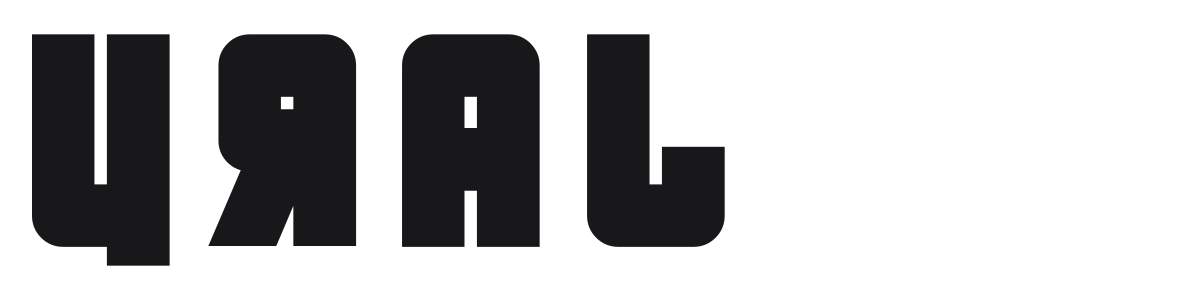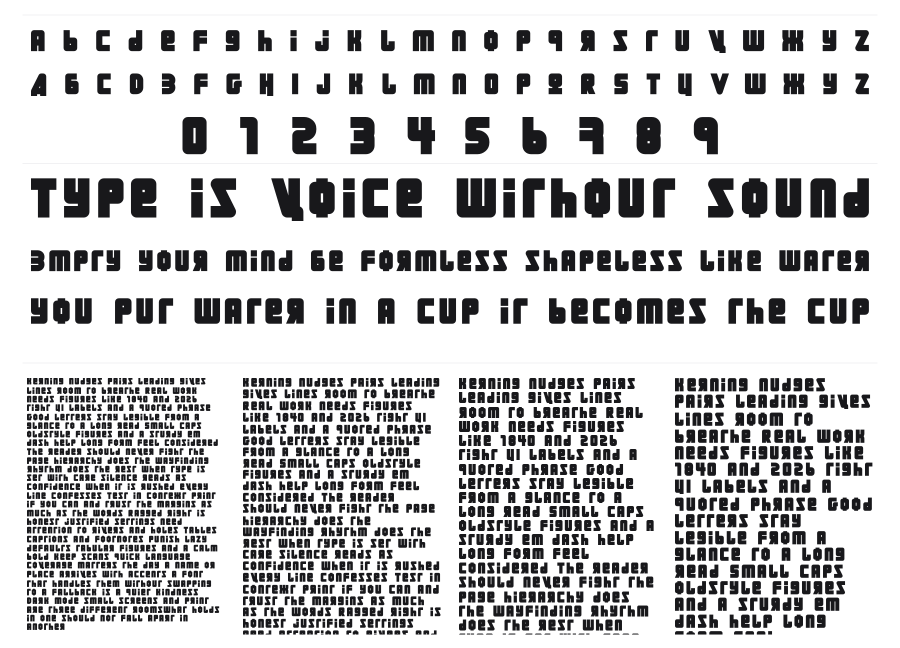
Ural
Ural is a heavy geometric display typeface built from modular rectangular and circular blocks, evoking Soviet constructivism and industrial signage. Its near-zero stroke contrast and grid-based construction give it a mechanical, almost machine-stamped quality. Strong and dense, it commands attention at large sizes.